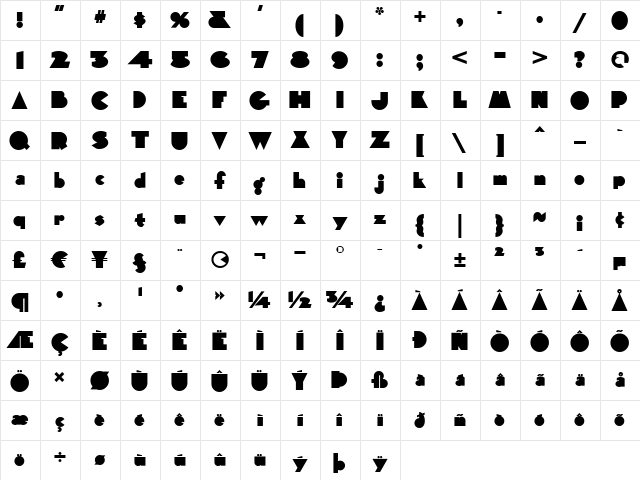
Wagner Silhouette NF Regular
Design Context for Wagner Silhouette NF Typeface
Wagner Silhouette NF is a composed and adaptable typeface that performs quietly and consistently across a wide range of design contexts.